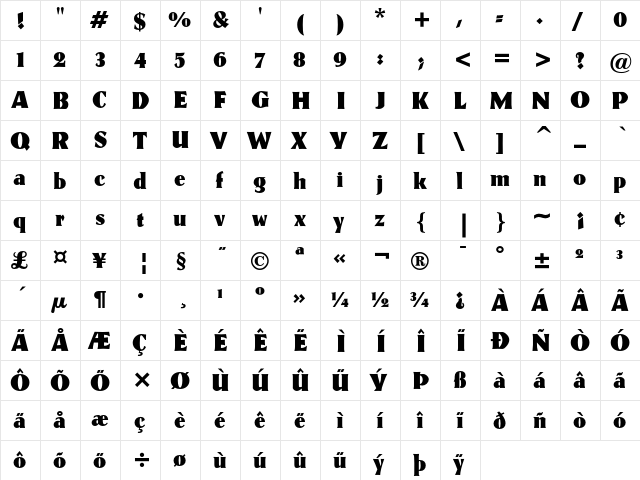
Kuenstler 165 Heavy
Design Context for Kuenstler 165 Typeface
Kuenstler 165 takes a measured approach to typography — its balanced proportions and neutral character make it a reliable workhorse for both digital and print work.